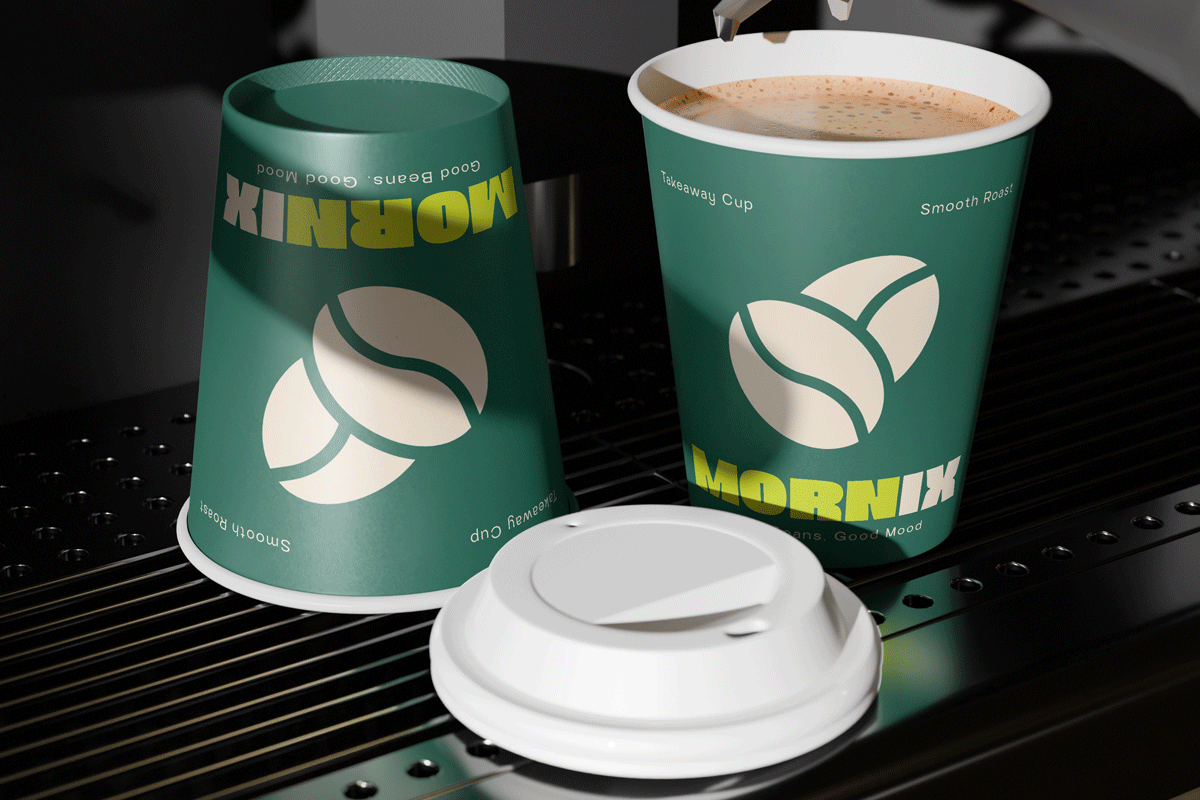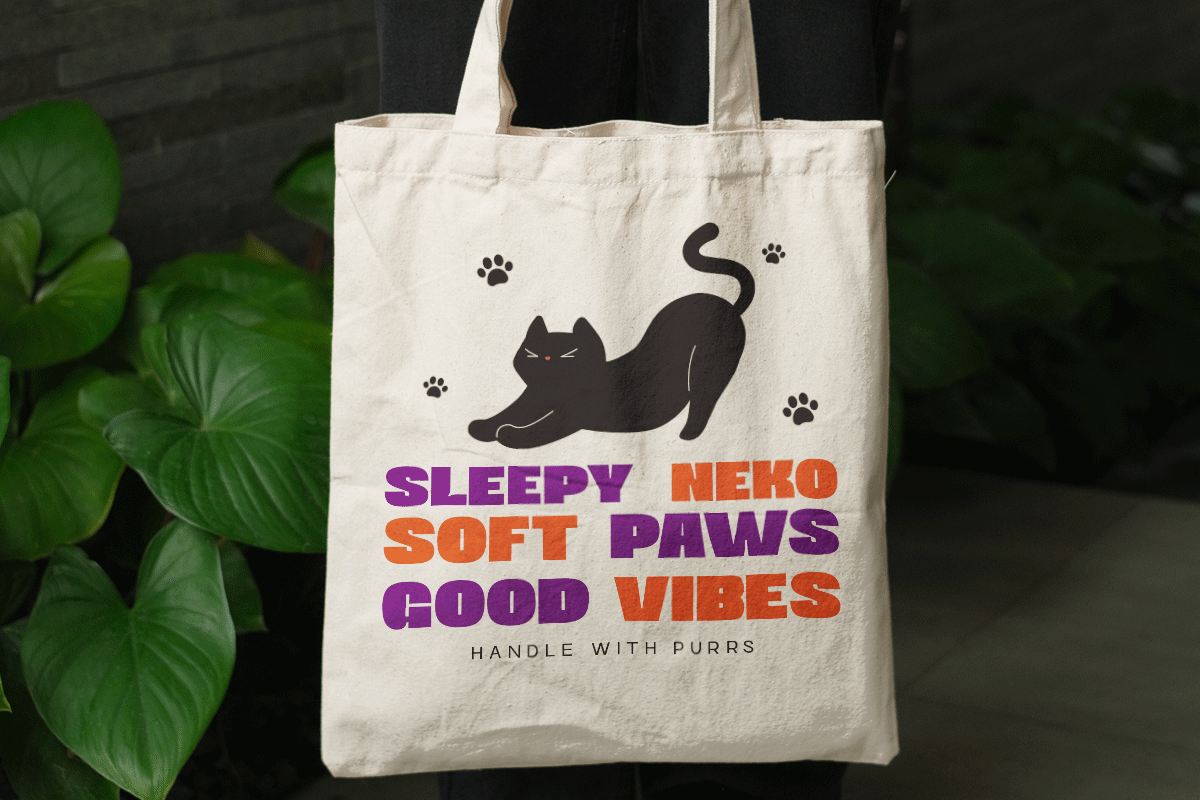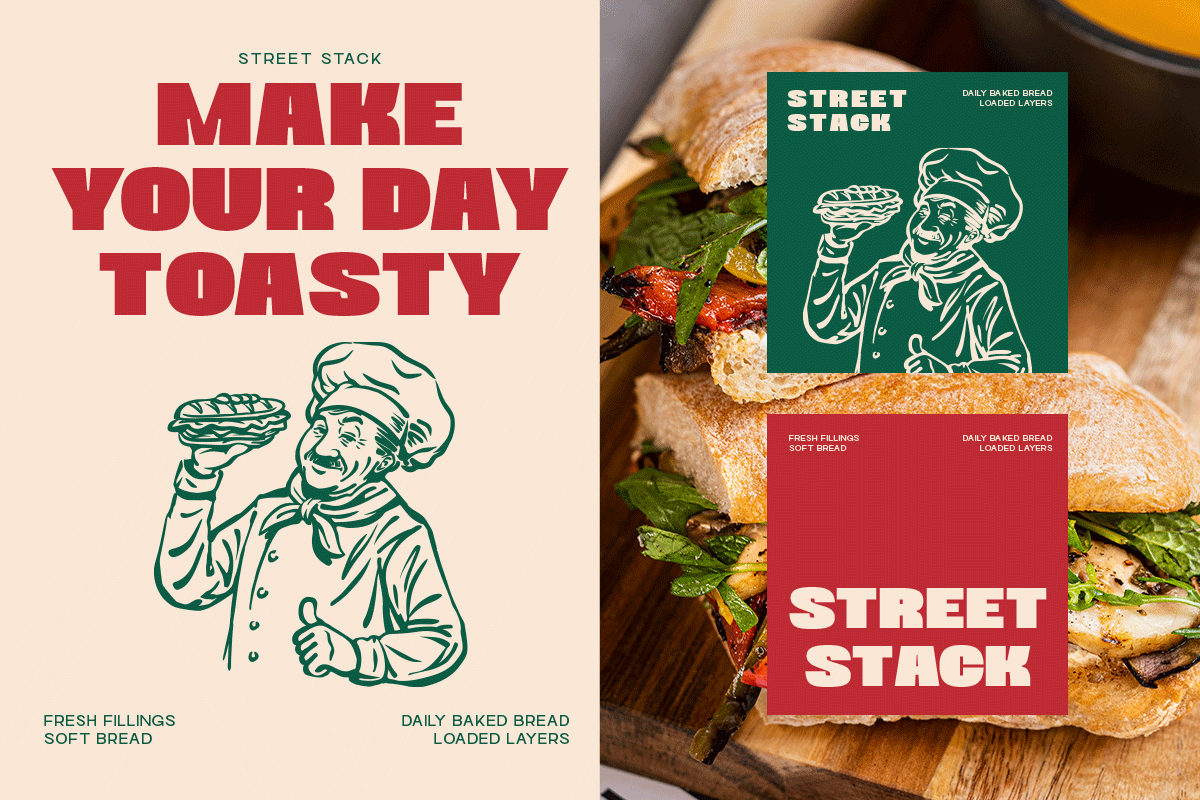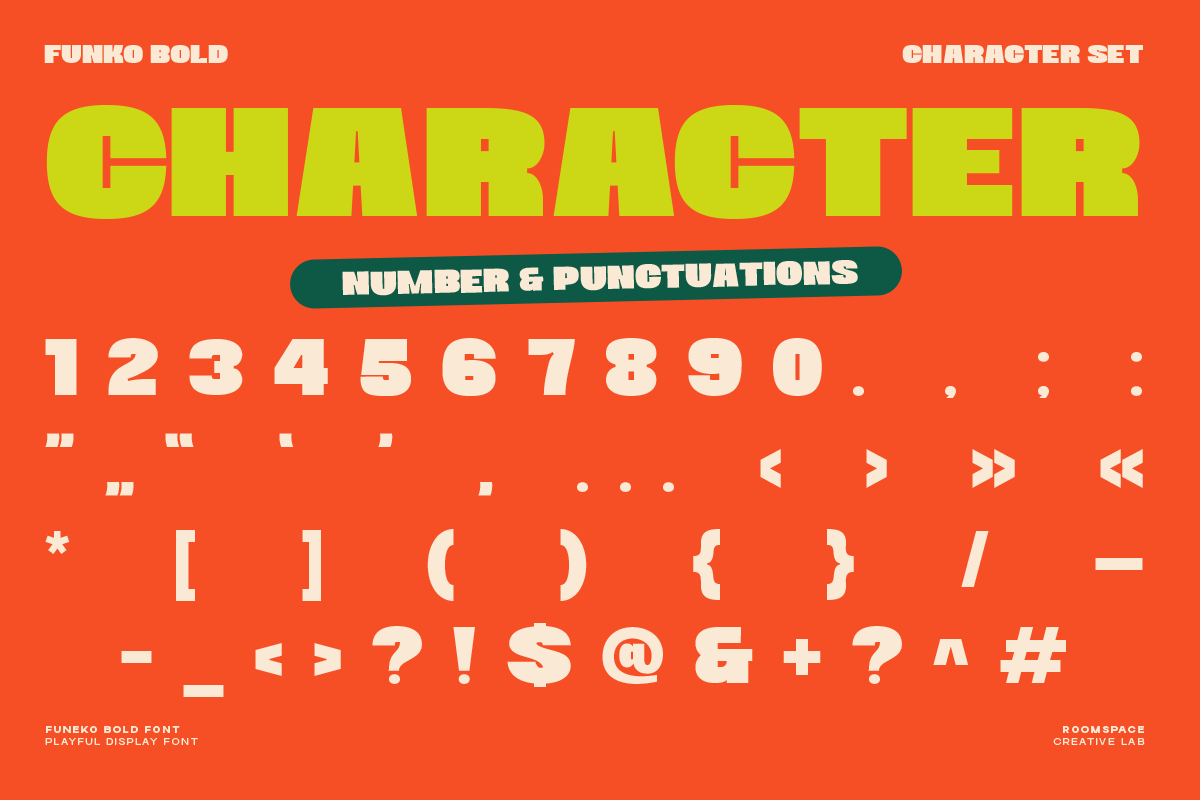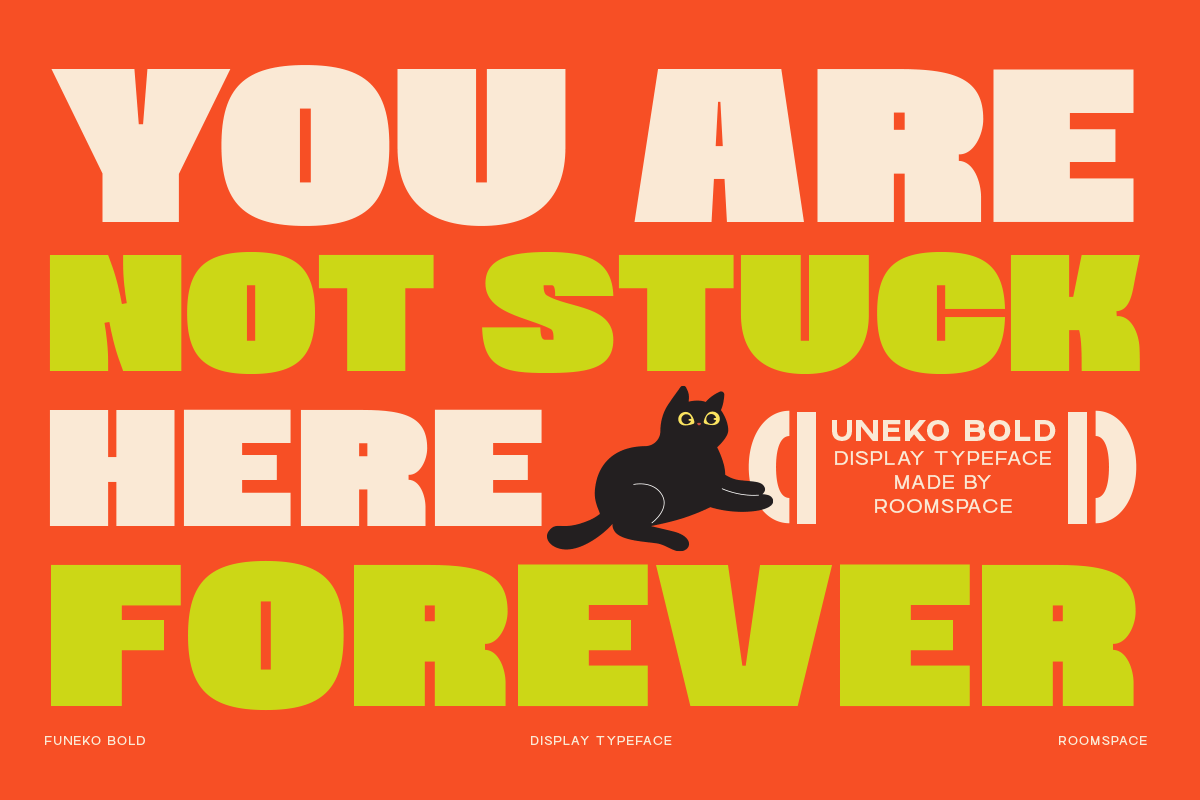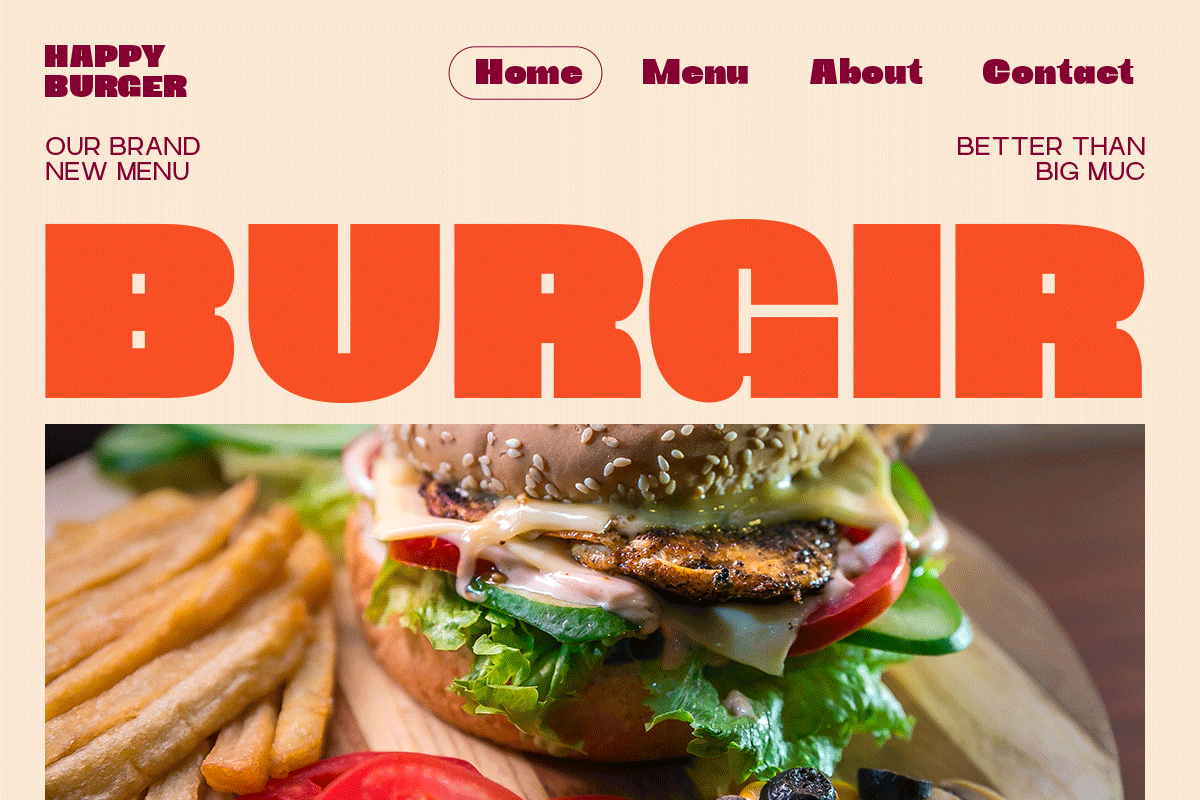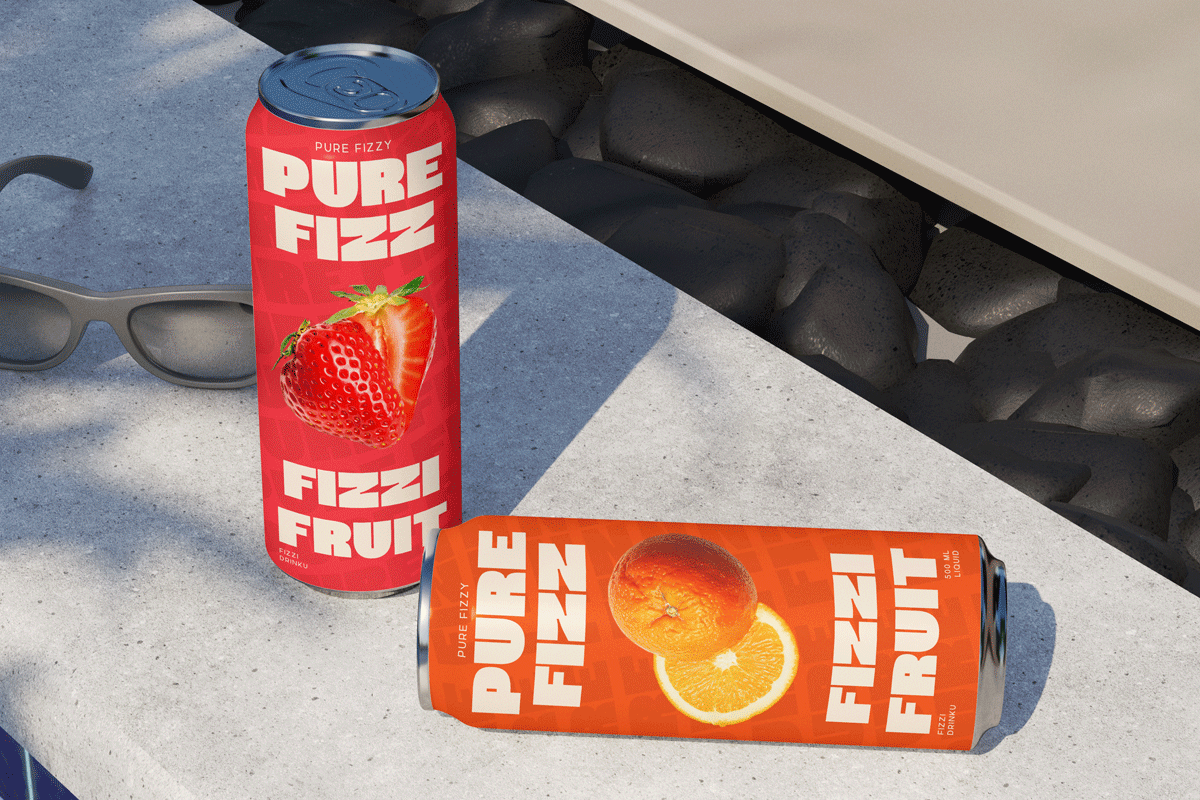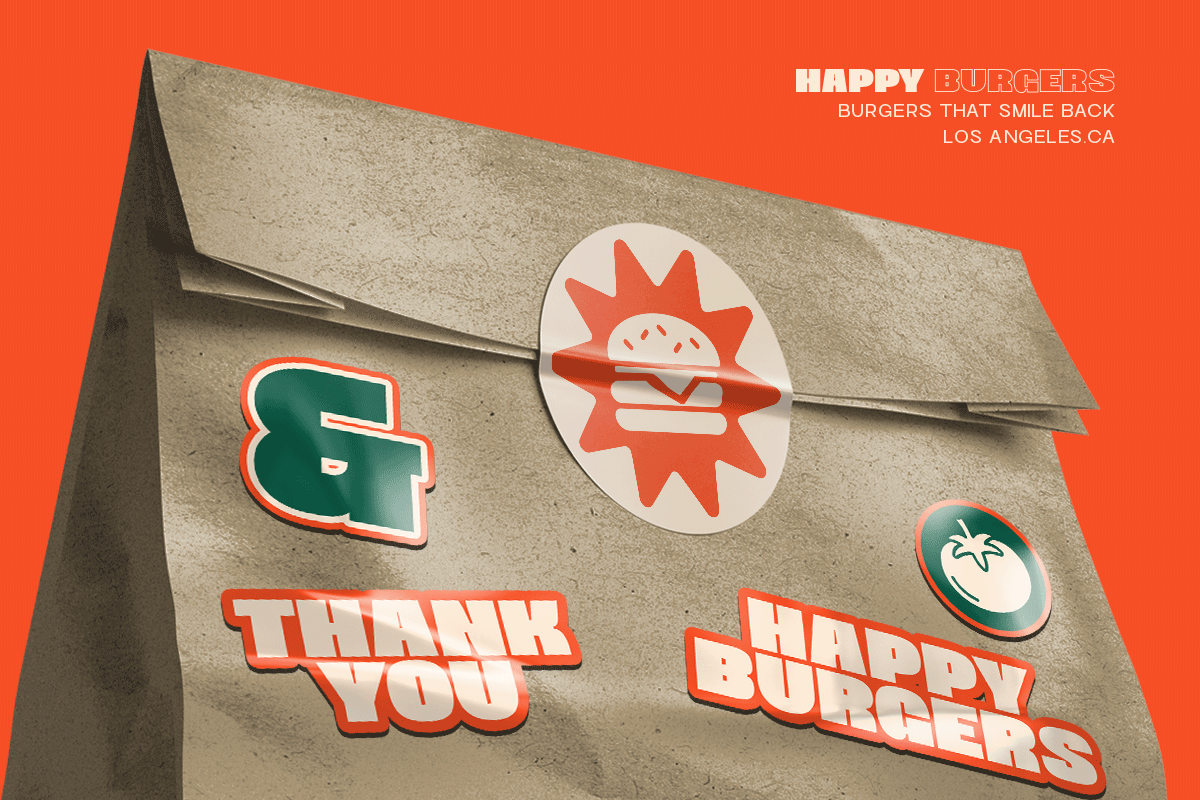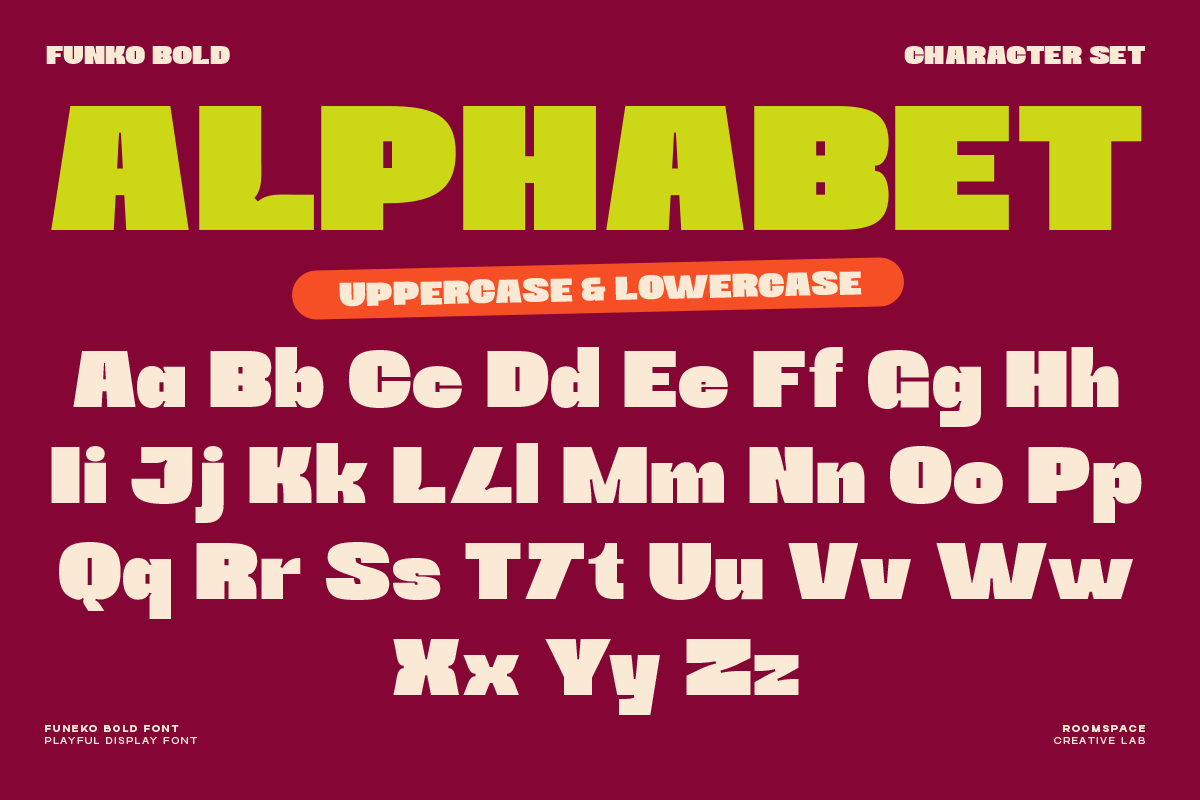
Uneko Bold – A Playful Chunky
A fun, bold, and cartoon-style display font perfect for kids branding, games, and playful design. Uneko Bold is a playful display typeface with chunky shapes and a cute cartoon personality. Designed for children’s branding, colorful packaging, posters, and character-based design, this font brings joy and bold expression to every project. This set includes 2 styles, offering flexibility for titles, illustrations, and fun storytelling visuals.
- 2 playful font styles
- Chunky and rounded display shapes
- Clean curves and playful proportions
Perfect For : Kids branding, games, toys, packaging, YouTube thumbnails, storybooks, fun posters, social media graphics.